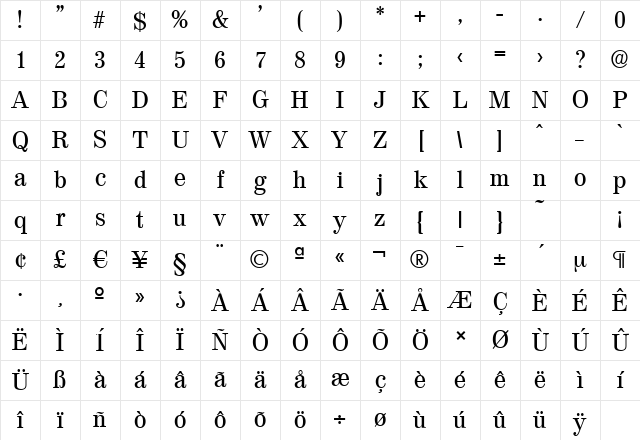
Complete ValenciaSerial-Medium Regular glyph index. Displaying only characters natively supported by ValenciaSerial-Medium Regular font.
ValenciaSerial-Medium is a composed and adaptable typeface that performs quietly and consistently across a wide range of design contexts.